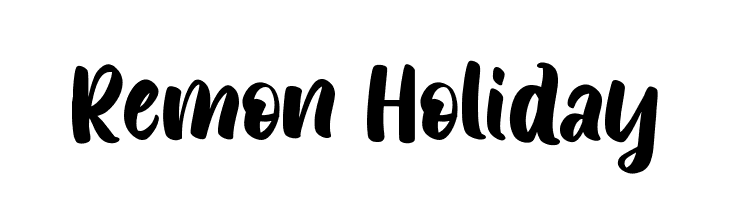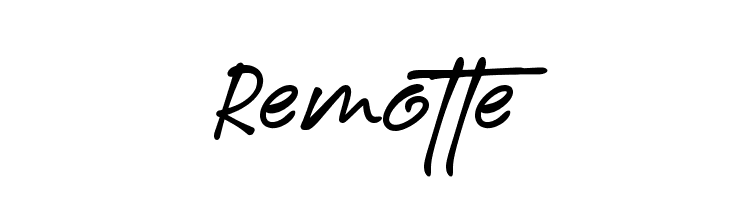
( Fonts by Des Gomez )
A playful, hand-drawn font with tall, narrow letters and whimsical details.
( Chris Au - www.chrisau-design.co.uk )
A hand-drawn, rustic font with bold, uneven strokes and a playful appearance.
( Nathania Kawitan )
A modern decorative font with unique cut-out sections and dynamic curves.
( Ekloff Design - ekloff.com )
A modular, grid-based font with a digital, pixelated style.
A bold, playful handwritten font with thick, rounded strokes and a lively appearance.
A lively handwritten font with smooth, slanted strokes and a casual elegance.
A bold, modern sans-serif font with clean lines and strong presence.
A bold, angular font with geometric uppercase letters, perfect for striking headlines.
A bold, hand-drawn style font with energetic and playful characteristics.
A decorative font with layered, parallel lines creating a dimensional effect.